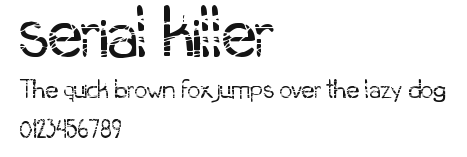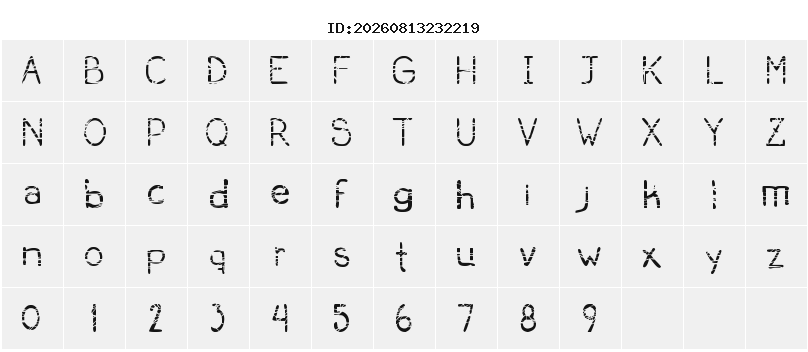
• Font Name: serial killer
About serial killer.ttf
serial killer.ttf is a modern, elegant sans-serif font designed for ultimate readability and visual harmony. Perfect for branding, headlines, web design, and print materials.